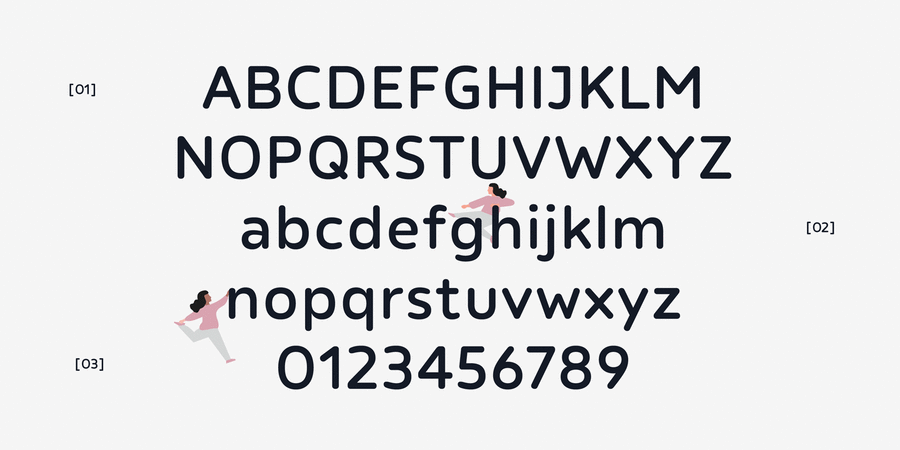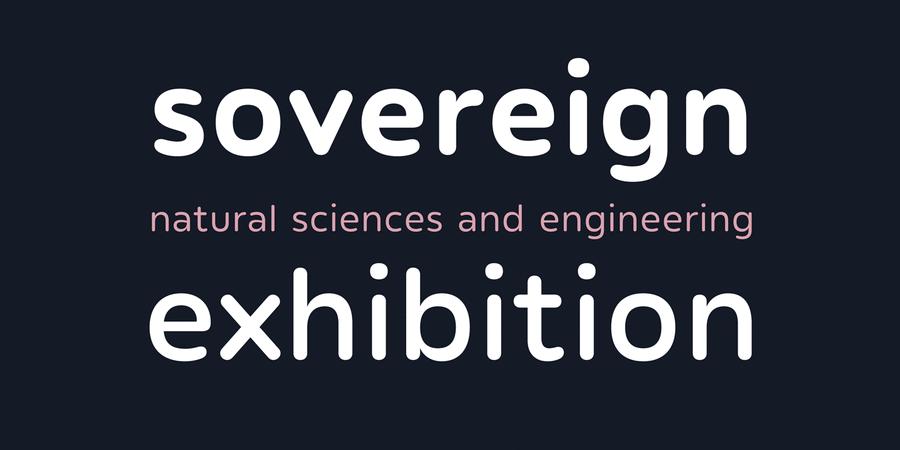
About Apoka Pro is a sans-serif type family of 6 weights. It is an extended version of Apoka, that was released earlier this year. Apoka Pro family’s character set supports both the Latin and Cyrillic scripts. The design features rounded terminals and a moderate contrast. Apoka's appeal is in understated simplicity and attention to detail. The type family is most suited for branding, signage, packaging, UI/UX and web design projects.
It features character alternates and OpenType features such as localised shapes, fractions, inferiors and superiors. Designed by Mariya Pigoulevskaya in 2017. Apoka Pro™ is a trademark of The Northern Block.